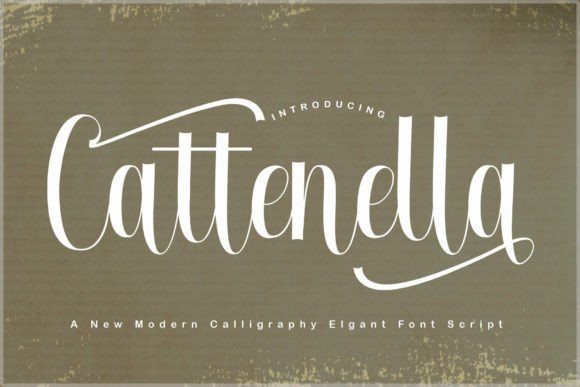
Behold Cattenella Font Script, a captivating calligraphy font that radiates elegance and sophistication. Its carefully crafted lines and varied baseline evoke a sense of timeless beauty, while its classic and elegant touches add a touch of luxury to any design. Whether you're creating eye-catching posters, personalized invitations, or stunning logos, Cattenella Font Script is the perfect choice.
With its versatility and wide range of applications, Cattenella Font Script is the ultimate choice for creative professionals and design enthusiasts alike. Its ability to transform ordinary text into works of art makes it perfect for titles, signatures, logos, wedding invitations, t-shirts, letterheads, nameplates, labels, news, posters, badges, and more. The possibilities are endless, allowing you to express your creativity and make a lasting impression on your audience.
Step into a world of boundless creativity with Cattenella Font Script. Its carefully crafted characters dance across the page, capturing attention and leaving a trail of elegance in their wake. Whether you're designing for print or digital media, Cattenella Font Script will elevate your work to new heights, leaving your audience spellbound.
So, why settle for ordinary when you can embrace the extraordinary? Choose Cattenella Font Script today and let your designs bloom with elegance and creativity. Immerse yourself in the world of timeless beauty and experience the power of this stunning calligraphy font. Let your imagination run wild and create masterpieces that will leave a lasting impression.